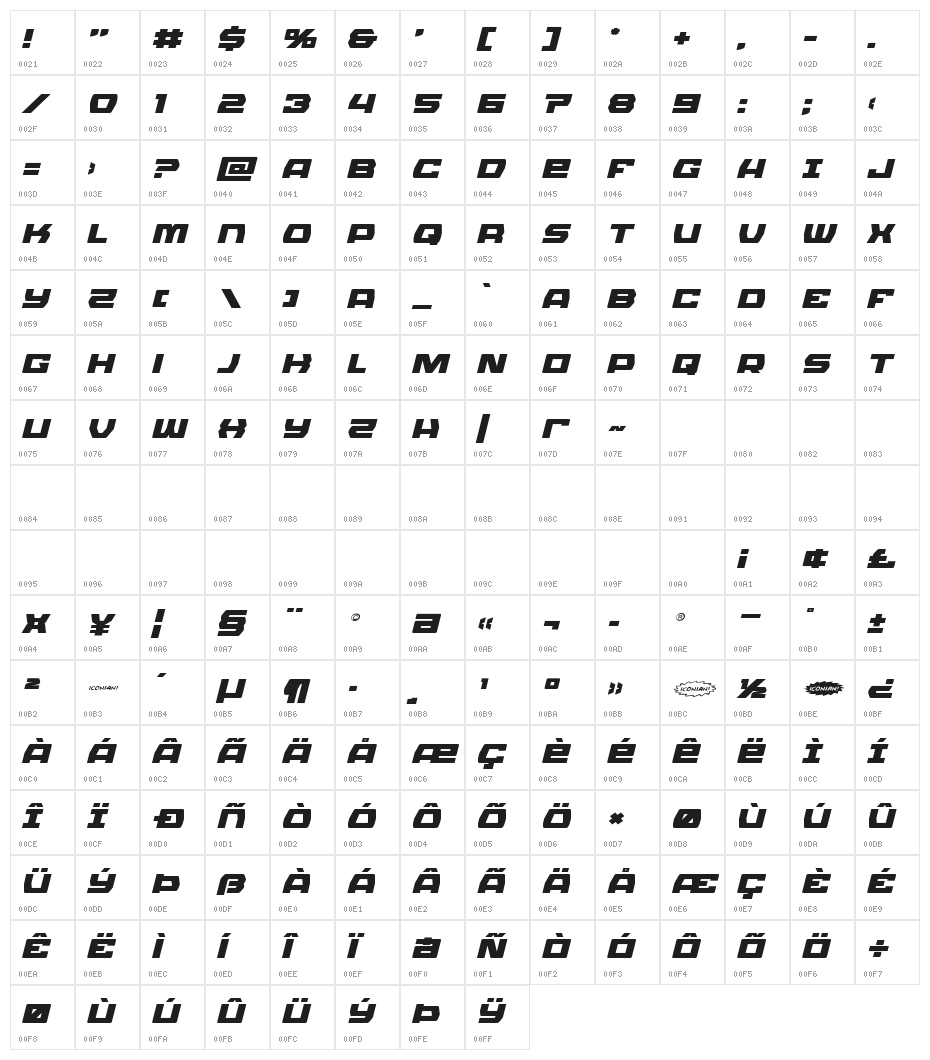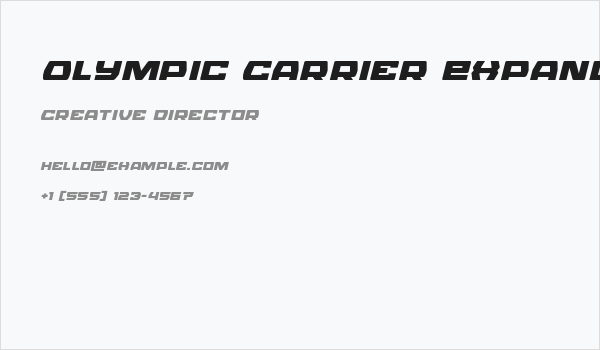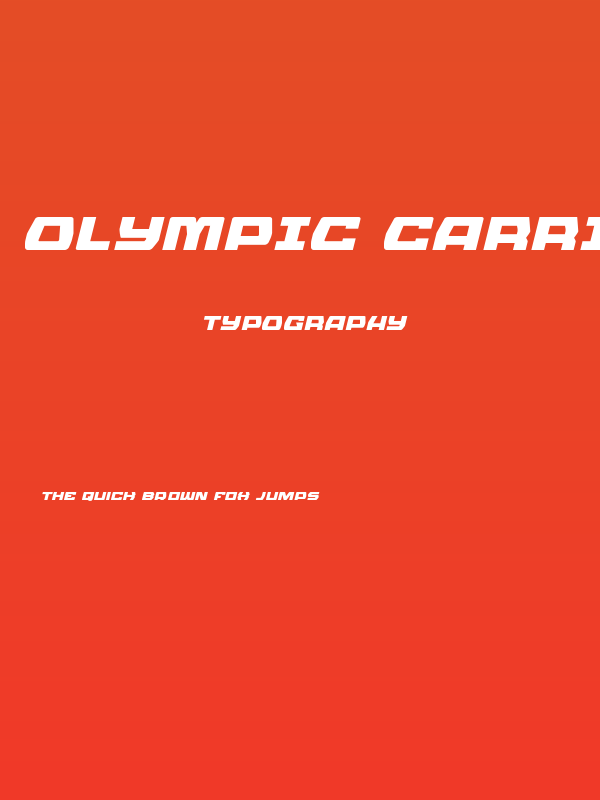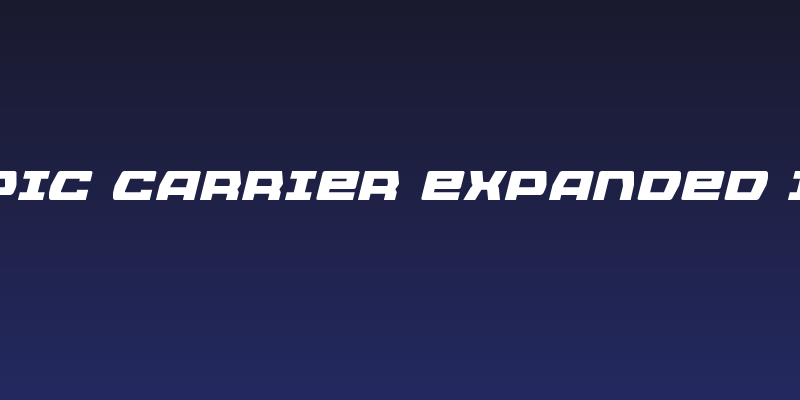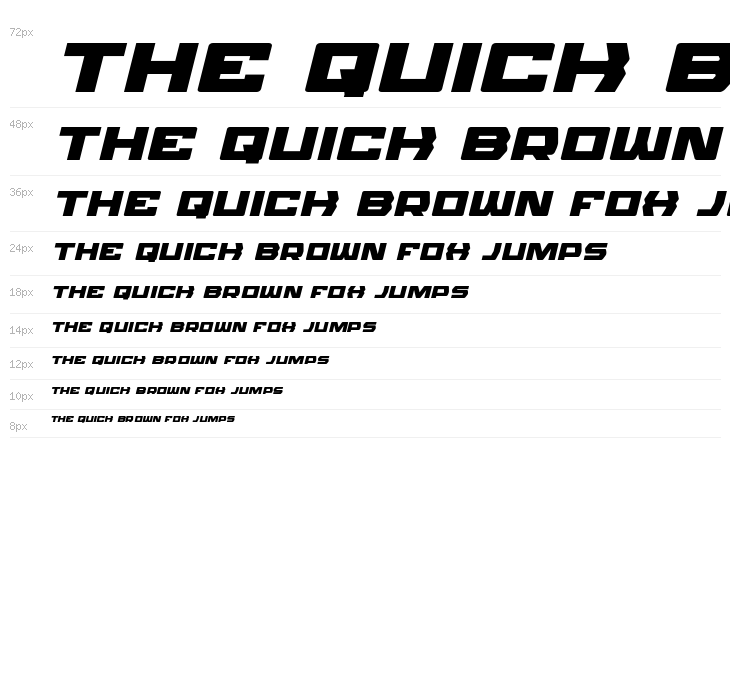
Olympic Carrier Expanded Italic Font
Olympic Carrier Expanded Italic Description
This font features a bold and dynamic style with an italic slant, giving it a sense of motion and energy. The characters are expanded, providing a wide and impactful appearance. The geometric shapes and sharp angles contribute to a modern and futuristic look. Each letter is distinct, with consistent stroke thickness that adds to the boldness of the design. The numbers and special characters maintain the same stylistic elements, ensuring uniformity across all glyphs. This font is ideal for projects that require a strong visual presence and a contemporary aesthetic.
| Proposed Projects | Ideal for sports branding, technology logos, futuristic posters, and dynamic headlines. |